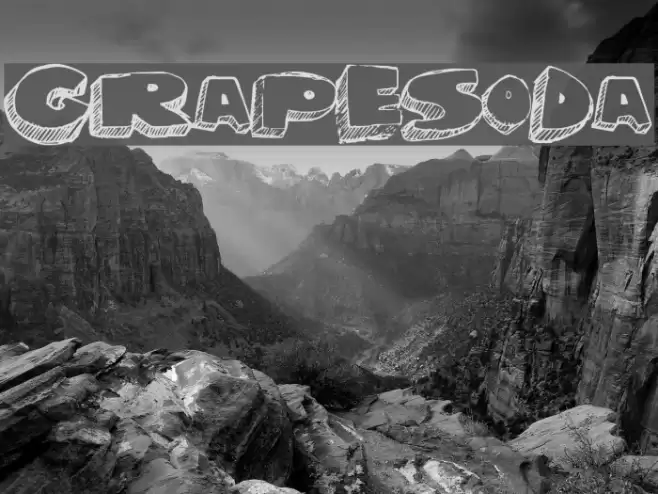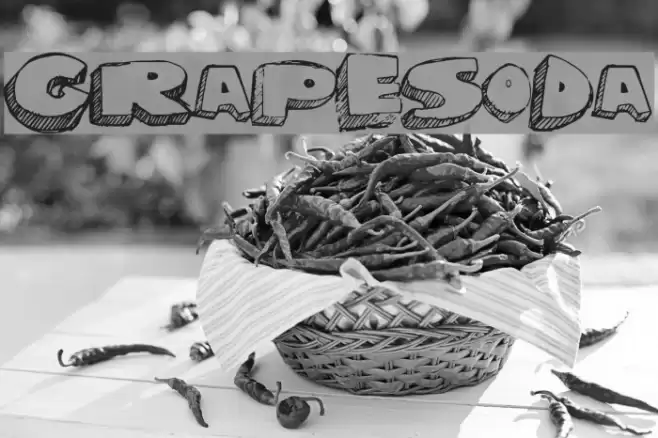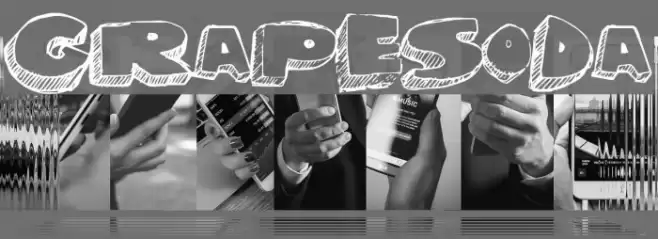
GrapeSoda Font
GrapeSoda Description
This playful and bold font features a hand-drawn, sketch-like style with a 3D effect. Each character is outlined with a thick black line, filled with white, and adorned with diagonal hatching that adds depth and texture. The letters are uppercase and lowercase, with numbers and special characters included. The font's whimsical and informal appearance makes it suitable for creative and fun projects. Its unique style is reminiscent of comic book lettering, with exaggerated curves and angles that give it a lively and dynamic feel.
A playful, hand-drawn font with a 3D sketch effect from Cartoon fonts.
- Proposed Projects: Ideal for comic books, children's books, posters, and playful branding.